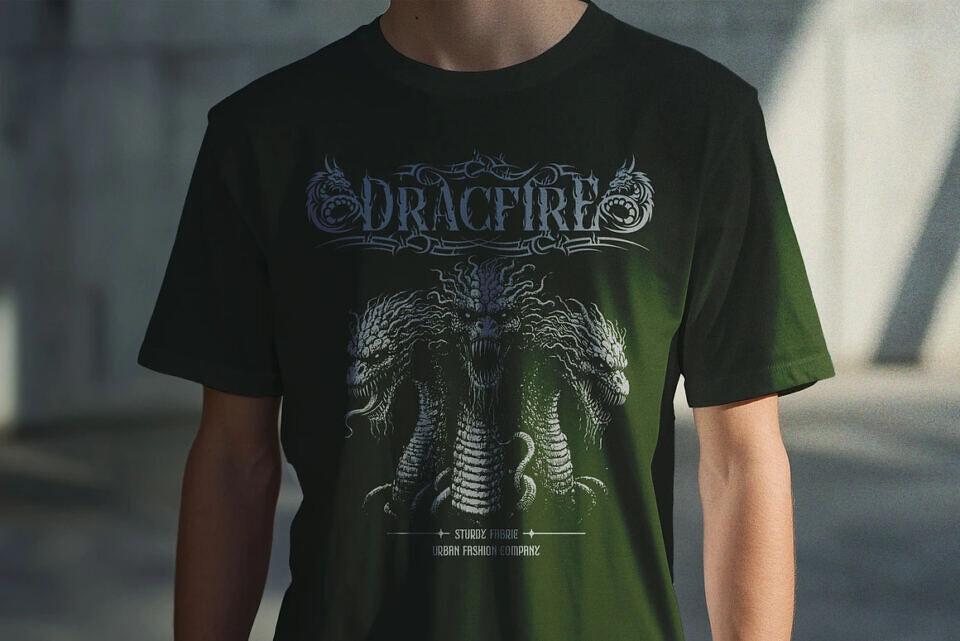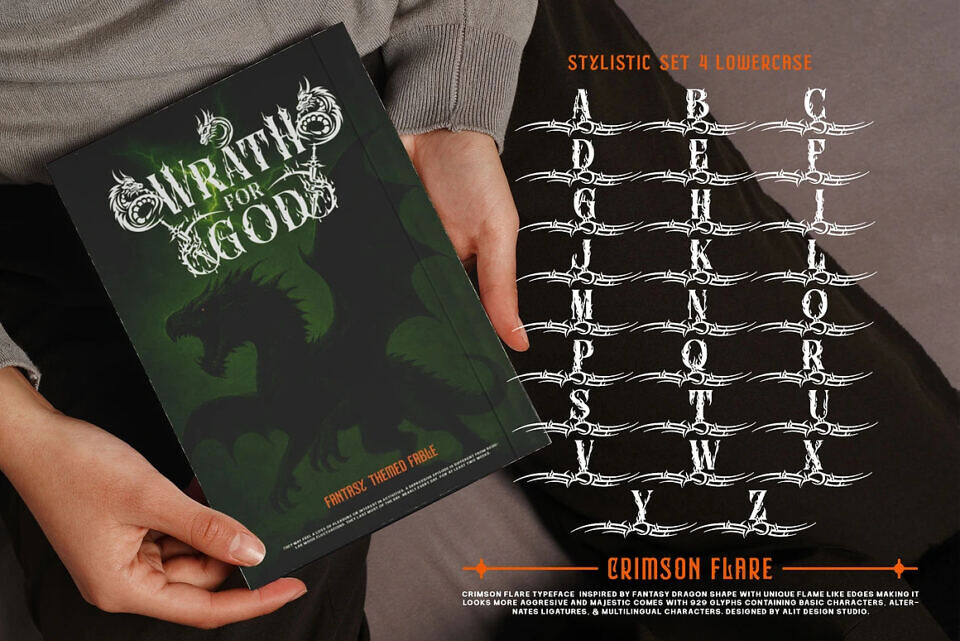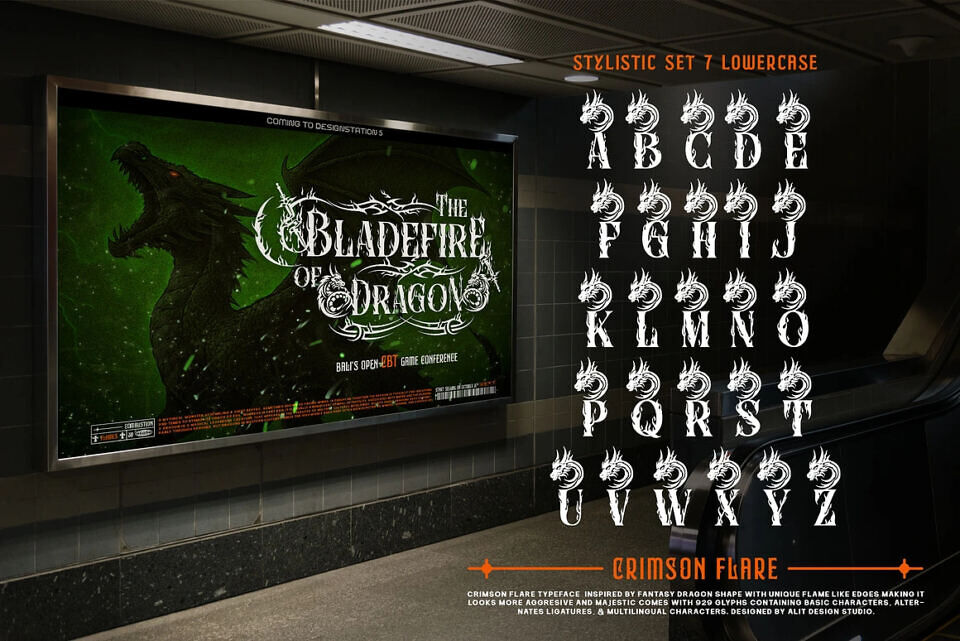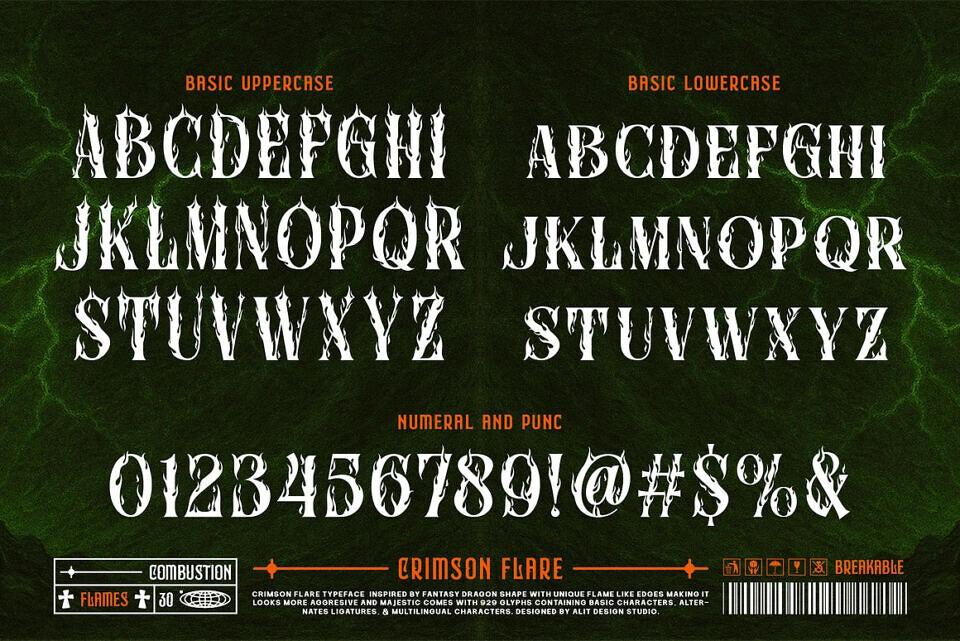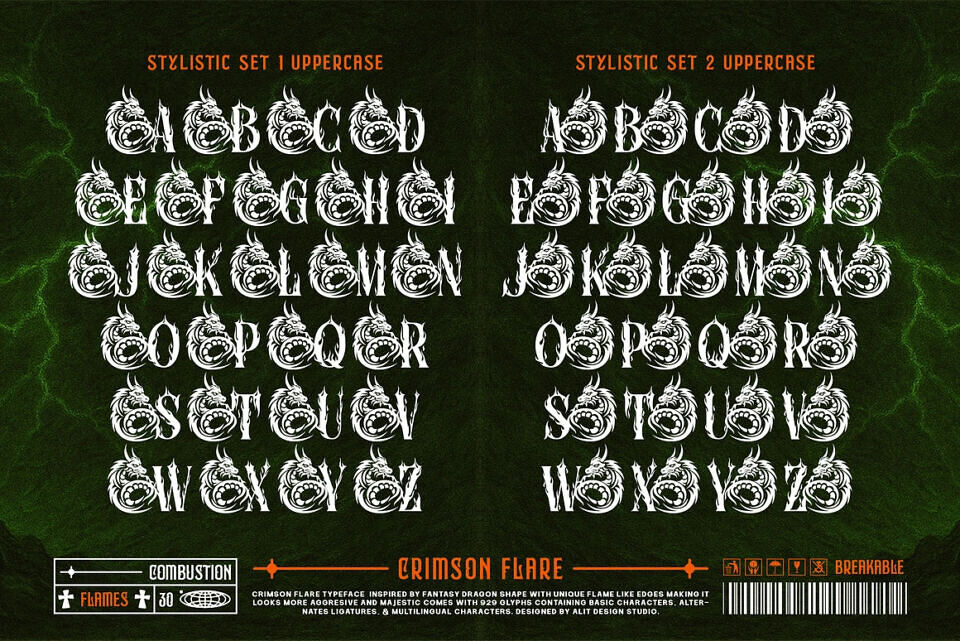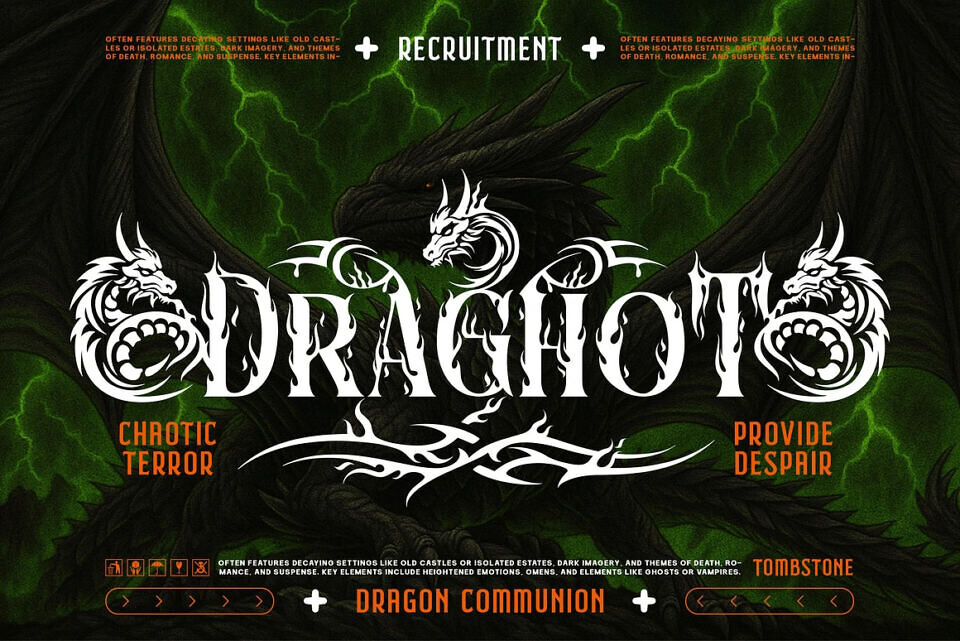
Crimson Flare Font
Unleash a torrent of dark fantasy with Crimson Flare, a powerful display typeface that bleeds aggression and majesty. Inspired by the raw power of dragons and the sharp edge of gothic steel, this font is a complete arsenal for creating legendary designs.
Ignite your projects with Crimson Flare, a typeface born from myths and forged in dragon’s fire. This font is not just a set of letters; it’s a toolkit for building worlds. The baseline characters feature sharp, flame-like edges, giving every word an aggressive and powerful feel.